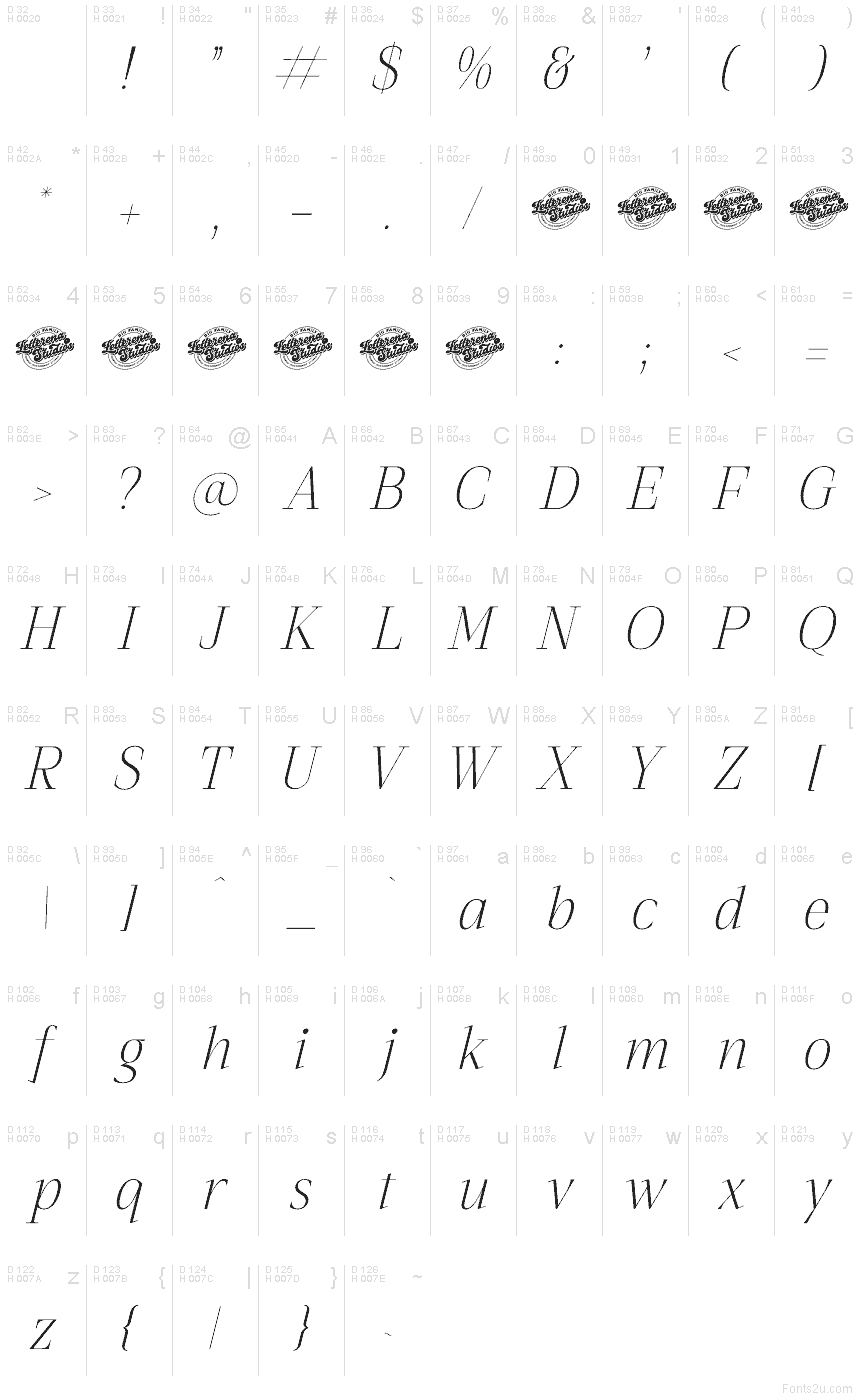
Seraphine DEMO VERSION Italic
Seraphine Italic font by Letterena Studios is a free italic high-contrast serif font. Built around liquid-thin hairlines and needle-precise serifs, it leans with a graceful sweep that feels airy yet poised. The strokes bloom from whisper-thin to inky thick, giving headlines a couture snap without losing readability at medium sizes, and the Seraphine family name signals a cohesive, refined voice.
Using Seraphine Italic, you’ll get effortless elegance for wedding suites, beauty branding, fashion editorials, boutique logos, perfume packaging, magazine mastheads, and book covers. This free font shines when tracked slightly open to let those delicate curves breathe; pair it with a quiet neo-grotesk sans to ground the romance. Seraphine Italic brings a rare, weightless sophistication that still carries authority.